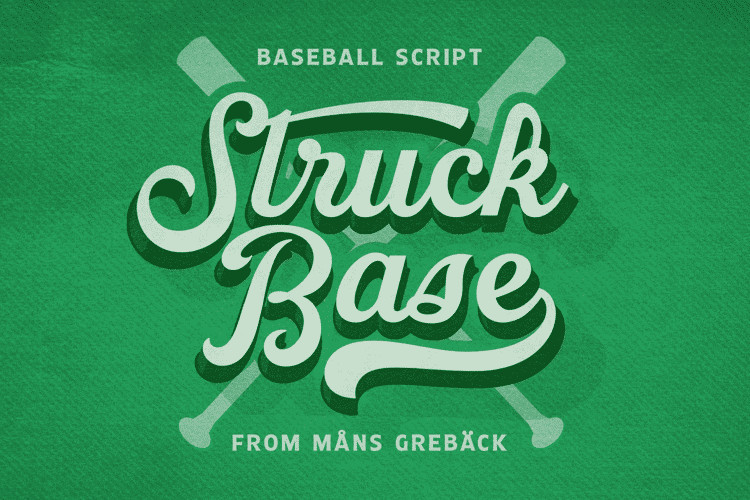
Struck Base Font
Struck Base is a cool logotype script font.
Drawn and created by Mans Greback in 2021, this lettering has a sporty style and a bold, colorful personality. It can be used in tough and feminine contexts, by peasants and royals alike, for tattoos or for weddings.
Constructed with retro inspired brush strokes, anything written in this calligraphy appears to be a truly custom typographic design.
The font is built with advanced OpenType functionality and has a guaranteed top-notch quality, containing stylistic and contextual alternates, ligatures and more features; all to give you full control and customizability. It has extensive lingual support, covering all Latin-based languages, from North Europa to South Africa, from America to South-East Asia. It contains all characters and symbols you’ll ever need, including all punctuation and numbers.